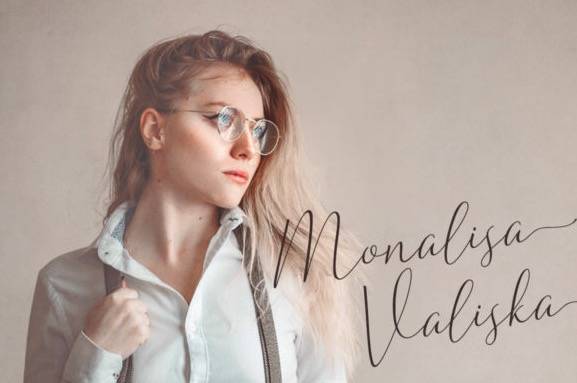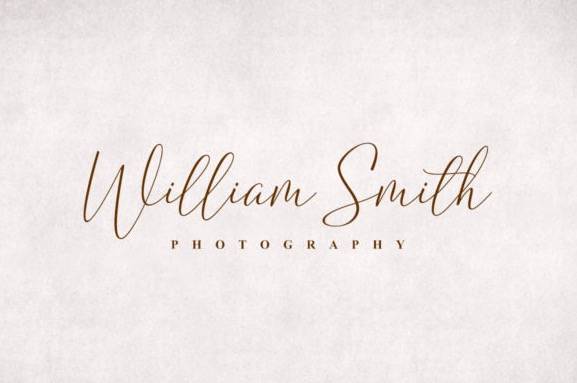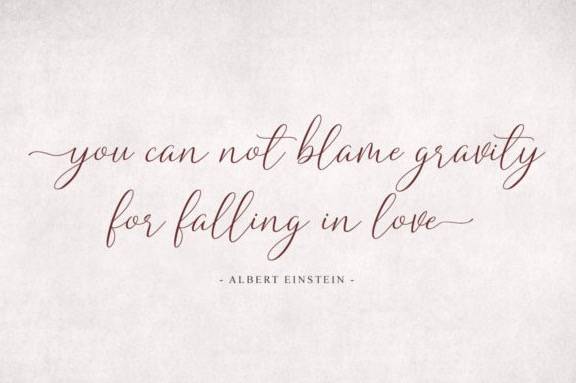
Sherland font simplifies elegance into a one truly outstanding handwritten typeface. And this font maintains its classy calligraphic influences while feeling fresh and contemporary.
This calligraphy font helpful made to be applied especially in logo, and the other various formal forms such as magazines, greeting/wedding cards, invitations, fashion, stationery, packaging, labels, makeup, books, etc.
Sherland Luxury Font
Sherland Luxury Script Font